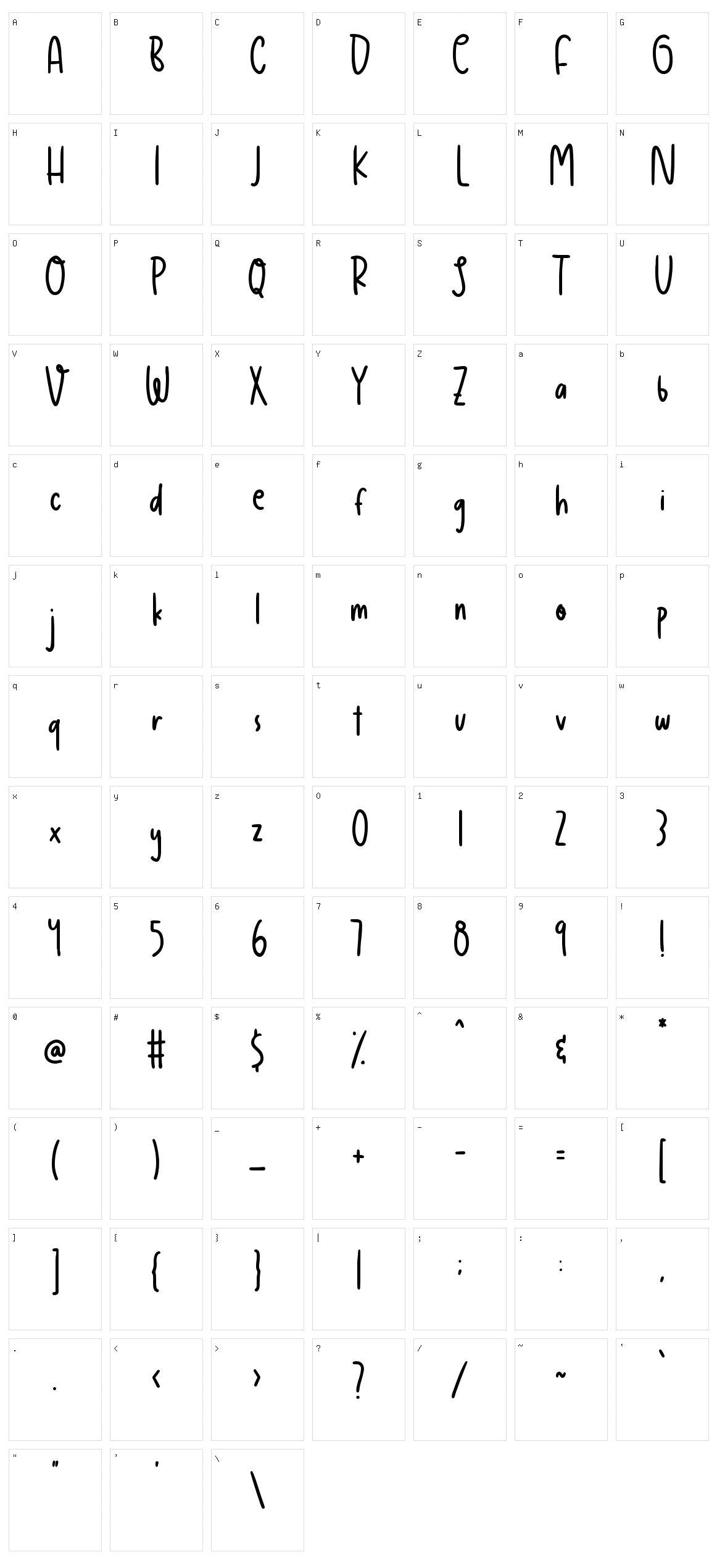
The free font Wonderful Magic is carefully designed by Dm Letter Studio - Dimas Prasetyo, showcasing a thoughtful balance of creativity and usability and falls under the Script font style. When you download the ZIP file, it contains only 235.62 KB of font files, making it lightweight and quick to download. Please review the license details below to understand permitted usage and distribution rights. If license information is not available, we recommend using this font for personal projects only or contacting the author directly for commercial usage permissions.